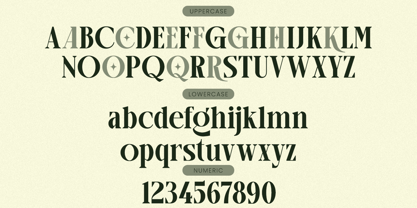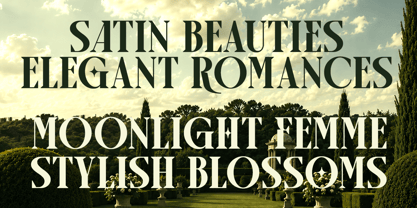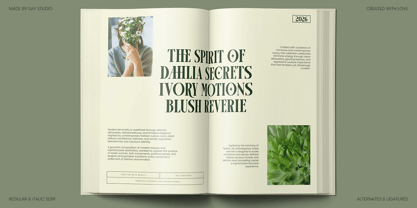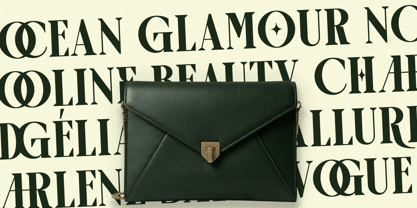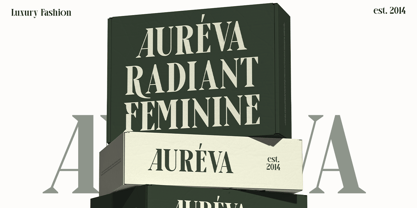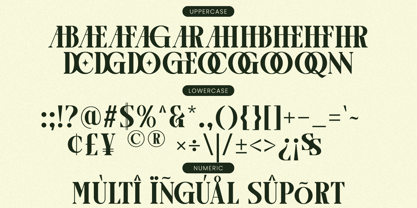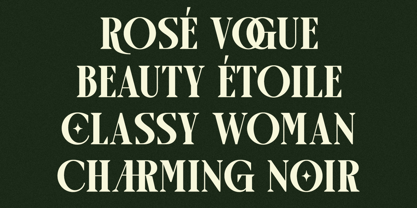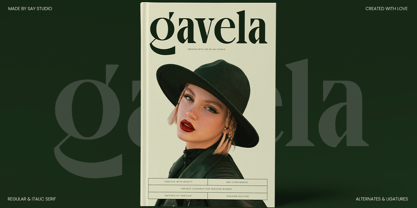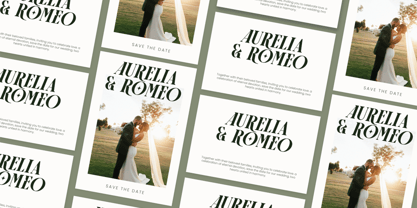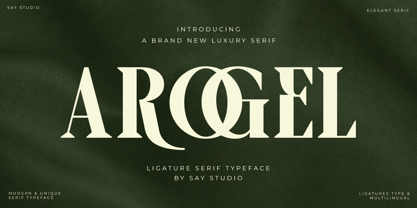
Arogel
by Say Studio
The Arogel Font Family was designed by Mussyayin and published by Say Studio. Arogel contains 2 styles and family package options. More about this family
Arogel is a luxurious serif typeface crafted to embody elegance, sophistication, and modern refinement. Designed with beautifully sculpted letterforms and distinctive ligatures, this font creates a striking visual presence that instantly elevates branding, editorial, and high-end design projects. Its dramatic contrast and graceful curves deliver a timeless aesthetic that feels both fashionable and exclusive.
Inspired by luxury fashion houses, premium beauty brands, and contemporary editorial design, Arogel blends classic serif traditions with modern artistic details. The carefully designed ligatures add uniqueness and personality to every word, making it ideal for logos, headlines, packaging, and sophisticated visual identities. Whether used for fashion campaigns, cosmetic products, wedding stationery, or magazine covers, Arogel offers exceptional versatility and premium appeal.
Arogel is perfect for luxury branding, fashion labels, jewelry packaging, beauty products, boutique businesses, editorial layouts, invitations, social media content, and upscale marketing materials. With multilingual support and elegant styling, this typeface helps designers create memorable and prestigious visual experiences.
• Regular and Italic Style
• Stylistic Ligatures
• Uppercase and Lowercase
• Number, Symbol, and Punctuation
• Multi Language Support
Designers: Mussyayin
Foundry: Say Studio